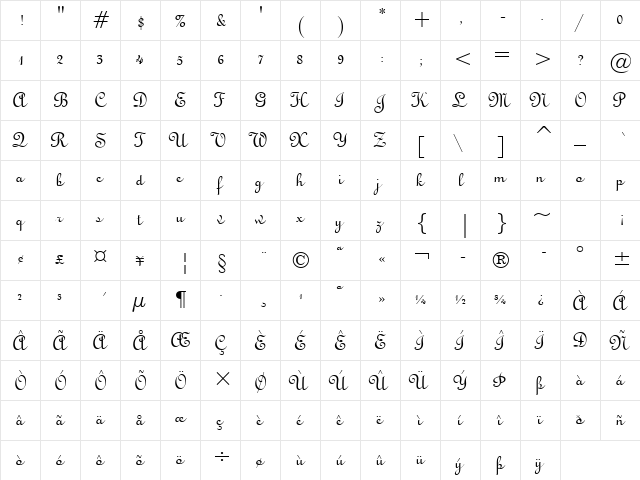
TypoUpright BT Regular
Design Context for TypoUpright BT Typeface
TypoUpright BT takes a measured approach to typography — its balanced proportions and neutral character make it a reliable workhorse for both digital and print work.